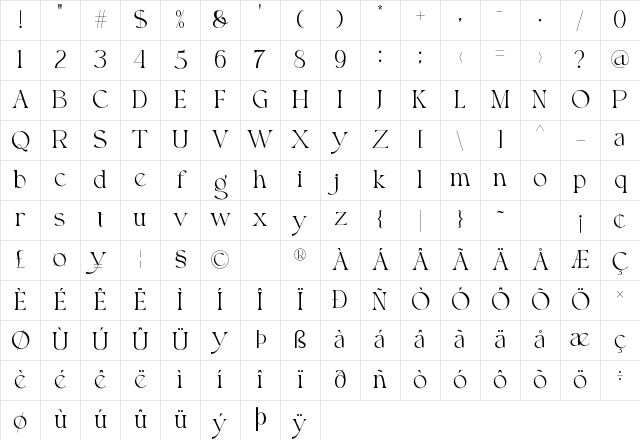
Roxie Rossa Regular Free Font
Roxie Rossa Regular
Designer: ToniStudio
Complete Roxie Rossa Regular glyph index. Displaying only characters natively supported by Roxie Rossa Regular font.
Design Context for Roxie Rossa
Roxie Rossa is a composed and adaptable typeface that performs quietly and consistently across a wide range of design contexts.